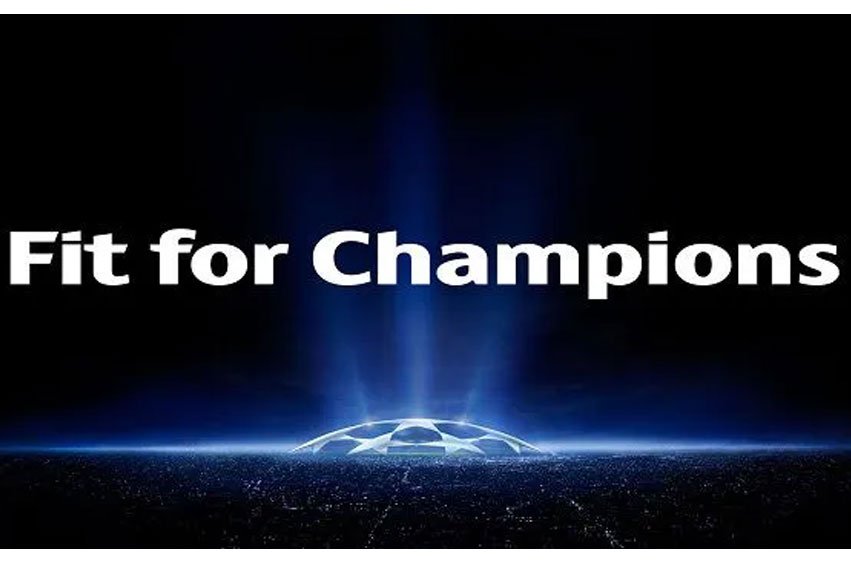
Champions Bold Font
Champions Bold Font by Jason Smith is an outstanding San Serif font that can be freely downloaded for personal use.
The free version has upper case letters and few special characters.